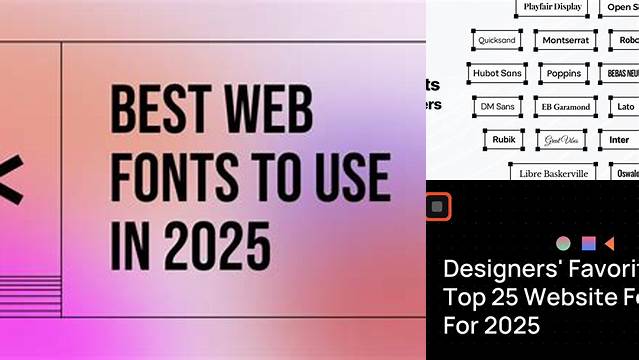
Top Website Fonts: Your 2025 Guide
Hey everyone! Planning a website revamp or starting fresh in 2025? One of the most crucial elements to consider is your typography. Choosing the right fonts can drastically impact your website's readability, user experience, and overall brand image. It's like picking the perfect outfit – you want something that looks good, feels comfortable, and represents your style. So, guys, let's dive into the world of website fonts and explore the best options for 2025, ensuring your site looks awesome and performs even better. This guide will break down everything you need to know, from current trends to practical tips for choosing and implementing fonts that will make your website shine. Let's get started!
1. Understanding the Importance of Font Selection for Websites
Alright, let's talk about why fonts are such a big deal. In the digital world, where your website is often the first impression, the fonts you choose are way more important than you might think. They're not just about aesthetics; they play a vital role in how users perceive your brand and interact with your content. Think of it like this: a well-chosen font is like a warm handshake, welcoming visitors and inviting them to explore further. A poorly chosen font, on the other hand, is like a confusing map, making it hard for users to navigate your site and enjoy the experience. That's why the best fonts for website 2025 are those that are not only visually appealing but also functional and aligned with your brand's personality. They help you establish a clear voice and create a consistent user experience. Consider the emotional impact as well – fonts can evoke feelings, from trustworthiness and professionalism to creativity and playfulness. Therefore, when considering the best fonts for website 2025, it is necessary to consider these aspects. Good font choices can enhance readability, which is crucial for user engagement. If your text is difficult to read, visitors will likely bounce off your site, missing out on valuable information. Proper typography ensures that your content is accessible and enjoyable, keeping users on your page longer. In contrast, choosing the wrong font can lead to a poor user experience, negatively affecting your website's performance and ultimately, your business goals. Therefore, always prioritize your website's readability and how the fonts enhance user interaction.
2. Key Trends in Web Typography for 2025
Okay, let's peep at some of the hottest trends shaping the web typography landscape in 2025. Staying on top of these trends will help you make informed choices and keep your website looking fresh and modern. One big trend is the continued rise of variable fonts. Variable fonts are like chameleons; they can morph and adapt, allowing for a single font file to offer a wide range of styles, weights, and widths. This gives you incredible flexibility and control over your typography, letting you create dynamic and responsive designs that look great on any device. Another trend is the return of classic fonts with a modern twist. We're seeing a resurgence of timeless typefaces like serif fonts but with contemporary updates that make them perfect for the digital age. Additionally, we are moving towards more minimalist, cleaner designs, the emphasis is on readability and user experience. Websites are increasingly using simple, easy-to-read fonts that enhance content and make the user's visit more comfortable and effective. Another trend is to get away from the standardized fonts used by everyone, therefore, the best fonts for website 2025 will likely be unique and individual, helping brands stand out and create a strong identity. Moreover, accessibility is getting more attention, so we will see fonts designed with readability in mind, especially for users with visual impairments. This trend indicates a growing importance on inclusive design, assuring that all visitors can easily use your website. Furthermore, expect more emphasis on the use of custom fonts. Custom fonts are developed for specific brands, which increases brand recognition and enhances the uniqueness of a website. As we move into 2025, make sure that your website not only looks great but also functions properly by keeping up with these significant typography trends.
2.1. Variable Fonts and Their Impact
Variable fonts are the rockstars of modern web typography. Unlike traditional fonts, which come in distinct styles and weights, variable fonts offer a single file that can adapt to different styles, weights, and even widths. Think of it as a single font that can morph into countless variations, giving designers unprecedented control. This is a huge advantage because it allows for more dynamic and responsive designs. Instead of loading multiple font files for different styles, you only need one. This means faster loading times, improved website performance, and a smoother user experience. Using variable fonts also provides a design freedom. You can adjust font weight, width, and other attributes in real-time, allowing for more expressive and nuanced typography. You can fine-tune your typography to match the specific needs of different screen sizes or design elements, creating a fluid and adaptable design. If you are looking for the best fonts for website 2025, variable fonts are something to be considered. They can also improve accessibility. Since you can easily adjust font weight and size, you can provide better options for users with visual impairments. You are able to increase the weight or adjust the widths to make your text easier to read and navigate. Lastly, variable fonts offer a more efficient workflow. Managing a single font file is much easier than handling multiple fonts. It simplifies the process, making it easier to experiment and find the perfect look for your website. The adoption of variable fonts is a great sign of the evolution of web design, and they will play a large role in the success of your website.
2.2. The Resurgence of Classic Fonts
Guys, classic fonts are making a comeback, but they're not the same old faces we're used to. Think of it like fashion – the classics are always in style, but with a modern twist! In 2025, we'll see a renewed appreciation for serif fonts like Times New Roman and Georgia, but with updated designs optimized for the digital world. These modern adaptations are designed to be more readable on screens, which is crucial for a great user experience. These fonts are elegant and create a sense of trustworthiness and sophistication. Sans-serif fonts like Helvetica and Arial will remain popular, providing clean, minimalist options perfect for modern designs. The key is finding the right balance between the classic aesthetic and modern functionality. Another aspect of classic fonts is their timelessness. Choosing a classic font ensures that your website will not look dated quickly. These fonts have been around for years, and they've proven their versatility and appeal. The best fonts for website 2025 need to be able to adapt to the changing demands of the web, and they should not be too trendy. Moreover, they are typically highly readable, which is essential for user experience. Classic fonts have been refined over time, so they are designed to work effectively and enhance content accessibility. The resurgence of classic fonts is a reflection of a broader trend towards timeless design and simplicity. Websites are becoming more and more streamlined, focusing on content and user experience. Classic fonts fit perfectly with this philosophy, providing a familiar and trustworthy look. The popularity of classic fonts also shows how old designs can become new again with some modification. This trend signifies the enduring appeal of elegant and functional typography. Choosing a classic font is a strong and safe choice to ensure that your website is aesthetically pleasing and will stand the test of time.
2.3. Minimalist Typography and Clean Design
Minimalist typography and clean design are all about embracing simplicity to enhance readability and user experience. Less is more, which is the motto! We're talking about uncluttered layouts, ample white space, and fonts that prioritize clarity and readability. This trend is all about making the user experience as smooth as possible. A clean design allows your content to shine without distractions. Your website is easy to navigate and understand, which keeps visitors engaged and encourages them to explore further. This is where the best fonts for website 2025 become essential. Think of them like the perfect frame for a beautiful painting. The fonts chosen should complement the overall design without overpowering it. A minimalist approach involves using simple fonts like sans-serifs such as Helvetica or Roboto. These fonts are designed to be highly readable and work well in various sizes and formats. The focus is on creating a sense of calm and clarity, and the user will love it. Another key aspect of minimalist typography is white space. The use of white space around text and other elements helps to improve readability and create a more visually appealing layout. White space gives the eyes a rest and prevents the layout from feeling cluttered. This is also about accessibility and inclusivity. Minimalist design makes it easy for users of all abilities to navigate your website. Reduced visual clutter, clear typography, and intuitive navigation are all crucial for creating an inclusive experience. With minimalist typography, you want your website to focus on content, ensuring a smooth, effective and pleasing experience for your visitors. This approach works well on all devices and helps create a website that is aesthetically pleasing and functional.
2.4. Custom Fonts and Brand Identity
Hey, guys, custom fonts are a big deal in 2025! They're all about creating a unique brand identity and making your website stand out from the crowd. A custom font is a typeface designed specifically for your brand, giving you complete control over your visual identity. Think of it like having a custom-made suit – it's tailored to fit your brand perfectly. This level of customization can dramatically improve brand recognition and leave a lasting impression on visitors. Choosing custom fonts will make your brand and website feel unique and memorable. The best fonts for website 2025 should reflect your brand's personality and values. They can create a consistent brand experience across all your channels, strengthening brand recognition and building customer loyalty. However, creating and using custom fonts can be a complex process. It involves working with a professional type designer to create a font that is tailored to your brand's needs. They can be designed to align with your specific branding guidelines, creating a cohesive brand identity that is instantly recognizable. The selection of custom fonts lets you fully control your website's look. The custom fonts are exclusive to your brand, setting your website apart and providing a unique visual style. Moreover, they let you use fonts with any size or format that your project may need. This way, you are not limited to existing fonts and you are free to use any format that fits your design, improving the quality of your website. Keep in mind that custom fonts require additional consideration for web performance. They will typically be larger files than standard fonts. This means that they can impact website loading times if not optimized correctly. However, if you're looking to establish a distinct brand identity and are willing to invest in the process, custom fonts are definitely worth exploring.
2.5. Accessibility and Readability in Font Choices
In 2025, accessibility is more important than ever, especially regarding font choices. Websites must be designed to be accessible to users of all abilities, and the right fonts can make a huge difference. When choosing the best fonts for website 2025, prioritizing readability and ensuring that your website is easy to use for everyone is critical. For users with visual impairments, choosing the right font can be essential. You need to consider several factors to enhance accessibility. Choose fonts that are clear and easy to read, such as sans-serif fonts. These fonts tend to be less cluttered than serif fonts, making them easier to read on screens. Using a font size that is large enough and adjusting the line height can also improve readability. You should ensure enough contrast between the text and the background. Avoid using light text on a light background or dark text on a dark background. Testing your website with different contrast ratios will help you find the best balance. Your website's design should also be responsive, meaning it adapts to different screen sizes. This allows users to easily read your content on any device, from smartphones to large monitors. Ensure your font is legible and that your text does not become too small. Provide users with options to customize font sizes according to their needs. Some web browsers allow users to adjust font sizes, so ensuring your website supports these settings is important. You can also implement features like a text zoom function to enable users to adjust the font size directly on your website. Accessibility is all about creating a welcoming experience for all users. Making your website accessible will improve your search engine optimization (SEO) as well. Accessible websites are often favored by search engines like Google. By prioritizing accessibility, you can improve your website's visibility and attract more visitors. In 2025, making accessibility a core part of your design process will give you a competitive advantage.
3. Top Font Recommendations for 2025
Okay, let's dive into some of the top font recommendations for your website in 2025. These choices are not only visually appealing, but they also prioritize readability and performance. We'll cover a range of styles to suit different brand personalities and design preferences. The following fonts are well-suited for the best fonts for website 2025. These recommendations will help you make informed decisions and create a website that looks amazing and functions flawlessly.
3.1. Best Sans-Serif Fonts for Web
When it comes to sans-serif fonts, the best options for websites prioritize readability and a clean, modern aesthetic. Sans-serif fonts, known for their simplicity and clarity, are excellent choices for body text and headings. Roboto is a versatile font designed by Google, it is known for its friendly and open design. It is optimized for legibility on various screen sizes and is a solid option for body text and headings. Open Sans another popular Google font, is highly readable and works well in various sizes. It has a neutral design and is suitable for a wide range of websites. Lato, a sans-serif font with a warm, friendly feel, offers a balanced design that is easy on the eyes. It works well for both body text and headings. Raleway is a stylish sans-serif font with a geometric design. It is suitable for modern and minimalist websites. Poppins is a geometric sans-serif font that is both versatile and readable. It has a modern design that makes it a great choice for headings and body text. These fonts offer a clean, modern look and ensure that your website is easy to read and navigate. These fonts also perform well across various devices and screen sizes, contributing to a great user experience. You can't go wrong with any of these as your best fonts for website 2025 choices.
3.2. Top Serif Fonts for Online Platforms
Serif fonts are back with a vengeance, but they're not the old-school serifs you might be thinking of. Modern serifs are refined for digital use, offering a touch of elegance and sophistication. These are perfect for headlines and branding elements where you want to convey a sense of authority and trustworthiness. Playfair Display is a high-contrast serif font that is ideal for headlines and titles, providing a stylish and modern look. Lora is a well-balanced serif font with a contemporary design that suits both body text and headings. Merriweather is a serif font specifically designed for readability on screens. It is a great choice for body text and long-form content. Bitter is a slab serif font with a clean and modern design that works well for headlines and body text. Choosing the best fonts for website 2025, a serif font will make your website more elegant and distinguished. These fonts offer a touch of sophistication and enhance your website's visual appeal. They are well-suited for content that demands a sense of authority and trustworthiness.
3.3. Display and Headline Font Suggestions
Display and headline fonts are the stars of your website, designed to grab attention and create a memorable first impression. They allow you to showcase your brand's personality and make your content pop. They are perfect for titles, banners, and other attention-grabbing elements. Montserrat is a geometric sans-serif font that works well as a display font. Its bold design gives headlines a strong presence. Bebas Neue is a tall and condensed sans-serif font that is perfect for headlines and other display elements. Oswald is a condensed sans-serif font that is perfect for headlines. Its bold and modern design makes it a great option for website titles. Abril Fatface is a bold and elegant serif font that is ideal for headlines and display text. Display fonts should align with your overall brand identity. When selecting the best fonts for website 2025, consider their impact and how they contribute to the overall design and brand messaging. Display fonts are essential for making a statement, capturing attention, and making your website memorable.
4. Practical Tips for Font Implementation
Alright, you've picked out some fantastic fonts, now what? Implementing them correctly is just as important as the choices you make. Let's look at some practical tips to ensure your chosen fonts look great and perform well on your website. It's like having the best ingredients but not knowing how to cook – you need the right techniques to get the perfect results. It is important to consider a variety of factors when implementing the best fonts for website 2025, from choosing the appropriate formats to optimizing for performance. These tips will help you create a website that looks great and offers a seamless user experience.
4.1. Choosing the Right Font Formats
Font formats are the backbone of your web typography, they determine how your fonts are displayed in different browsers and devices. Choosing the right formats is essential to ensure compatibility and consistent rendering. The most common font formats used for websites include WOFF (Web Open Font Format), WOFF2, and TTF (TrueType Font). WOFF is widely supported and the most used format for websites. It offers good compression and is supported by all major browsers. WOFF2 is the latest and most efficient format, providing even better compression and faster loading times. It is supported by all modern browsers. TTF is an older format that is not always recommended for use on websites, it is still supported by some browsers, but it is best to use WOFF or WOFF2 instead. Choosing the right font format is essential for ensuring that your fonts are displayed correctly across various browsers and devices. The best fonts for website 2025 are those that are versatile and compatible. Make sure that you use all the modern formats available, such as WOFF and WOFF2, to ensure that you take advantage of the best features. Ensure your font is properly implemented to deliver a seamless and visually appealing user experience.
4.2. Optimizing Fonts for Web Performance
Website performance is a big deal, and fonts can significantly impact loading times if you're not careful. Optimizing your fonts is crucial for a fast and smooth user experience. Fast-loading websites lead to higher user engagement and better search engine rankings. This is where font optimization comes in. When you select the best fonts for website 2025, it’s important to consider how their performance may impact your site. You will achieve excellent performance with these tips. Start by using the correct font formats like WOFF and WOFF2. Compress font files to reduce their size. Use a font loading strategy like preloading and lazy loading. Be sure to use a Content Delivery Network (CDN) to serve your font files from servers closer to your users. By optimizing your fonts, you can ensure that your website loads quickly and provides a seamless user experience. By taking these optimization steps, you can balance the aesthetics and the performance of your website. Make sure to carefully select and implement your fonts to deliver a fast-loading and high-performing website.
4.3. Font Pairing Best Practices
Font pairing is the art of combining different fonts to create a visually harmonious and balanced design. When you pair fonts correctly, your website looks more appealing and easier to read. Font pairing involves selecting fonts that work well together and complement each other. The best fonts for website 2025 must be able to work well with others to create a harmonious and readable layout. There are some basic guidelines you can follow to achieve successful font pairings. Contrast helps you ensure that the website is visually appealing and easy to navigate. Choose a font for headings and another for body text that offers a clear distinction between the different elements. This contrast will also create visual interest. Consider the personality of your fonts. Do not mix a playful font with a serious font. A good strategy is to use different font families. Pair a serif font for headings with a sans-serif font for body text. This offers a clear visual contrast while maintaining a cohesive look. Test your font pairs on your website. Look at the overall look and how the text flows. A well-paired font will enhance readability and user experience. Experiment with different font pairings until you find the right look for your website. The key to effective font pairing is balance and harmony. By using these guidelines, you can create visually appealing designs that improve your website's usability.
4.4. Ensuring Readability and Legibility
Readability and legibility are the cornerstones of good web typography. If your text is hard to read, users will struggle to engage with your content, no matter how beautiful your fonts may be. Ensuring that your text is easy to read is paramount for a positive user experience. This means ensuring that the best fonts for website 2025 are not only visually appealing but also functional. Always choose a font size that is appropriate for your content. The font size needs to be large enough so that users can easily read the text on a variety of devices. Adjust your line height, which is the space between the lines of text. It should be enough to make sure that the lines do not overlap or become too close together. Pay attention to the color contrast between the text and the background. Make sure that there is enough contrast to make the text easy to read. Avoid using light text on a light background and ensure that all your text is legible. The spacing between letters (tracking), words (kerning), and lines (leading) is essential for good readability. Make sure that your spacing is balanced. Always preview your text on various devices and screen sizes. Adjust the font sizes, line height, and spacing accordingly. Accessibility is essential, ensure that your content is accessible to everyone. Make sure that your text is easy to read for users with visual impairments. Prioritizing readability and legibility will ensure that your website is enjoyable and your content is accessible.
5. Tools and Resources for Font Management
Okay, let's talk tools! There are some fantastic resources that make finding, managing, and implementing fonts a breeze. From font libraries to online tools, these resources will help you streamline your workflow and create a beautiful website with ease. These tools will aid in implementing the best fonts for website 2025. This section will provide the resources you need to elevate your typography.
5.1. Font Libraries and Platforms
Font libraries and platforms are your one-stop shops for finding and managing fonts. These resources offer a vast selection of fonts, from free to premium options. They help streamline the font selection and implementation process. Google Fonts is a free and open-source library offering a wide range of fonts that are easy to integrate into your website. It’s a great place to start if you're looking for quality fonts without spending any money. Adobe Fonts is a premium font service included with Adobe Creative Cloud subscriptions. It offers a huge library of high-quality fonts from various foundries. Font Squirrel offers a selection of free, high-quality fonts with commercial use licenses. It's a good option for those who want to ensure that the fonts they use are legally compliant. These font libraries simplify the process of finding, managing, and implementing fonts for your website. You can explore a wide variety of options and find the perfect fonts that match your website's aesthetic and design goals. The best fonts for website 2025 can be found at any of these platforms, so feel free to use them!
5.2. Font Pairing Tools and Generators
Font pairing tools and generators take the guesswork out of combining fonts. These tools suggest font pairings that complement each other, ensuring a harmonious and visually appealing design. FontPair is a tool that curates font pairings based on visual compatibility and design principles. It simplifies the font pairing process. Type-Scale helps you create and visualize a scalable font system. It is helpful for ensuring visual consistency. FontJoy uses an algorithm to suggest font pairings that match your website's style. These tools save time and effort by recommending font combinations that work well together. Whether you're a seasoned designer or new to typography, these tools are essential. You can quickly experiment and find the best combination of fonts, which is essential when trying to find the best fonts for website 2025.
5.3. Web Font Testing and Preview Tools
Testing and previewing your fonts before implementing them is crucial. Web font testing and preview tools allow you to visualize how your fonts will look on your website. Typecast is a web-based app where you can see how fonts look in your design projects. It provides a great way to experiment with different fonts and see how they will appear on your website. Font testing plugins such as the “WhatTheFont” plugin can help you easily identify fonts that you see online. These tools allow you to test fonts in a real-world setting. This gives you the ability to evaluate your font choices and make informed decisions. Before you commit to using a particular font, you will be able to preview the different text elements of your website. You can easily see how the font will appear with different sizes, weights, and styles. With these tools, you'll be able to ensure that your website's typography looks perfect. Being able to test your fonts will improve the quality of your website and your overall user experience. When looking for the best fonts for website 2025, make sure that you always test your fonts before implementing them to see how they will look.
6. Conclusion: Choosing the Right Fonts for 2025
Choosing the right fonts for your website in 2025 is all about balancing aesthetics, functionality, and user experience. By staying on top of the latest trends, optimizing your fonts for performance, and using the right tools, you can create a website that looks amazing and performs flawlessly. Remember, the best fonts for website 2025 are those that align with your brand, enhance readability, and create a positive experience for your visitors. So, go out there, explore different options, and have fun with typography! Good luck, guys! Your website will look awesome! You've got this!